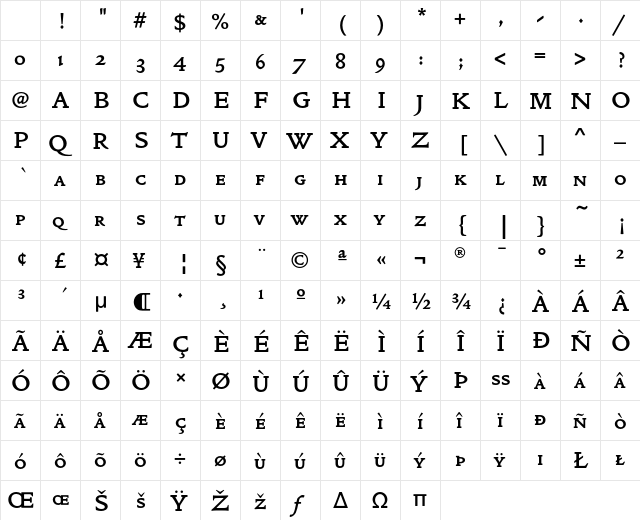
Complete GoldenTypeSCEF Bold glyph index. Displaying only characters natively supported by GoldenTypeSCEF Bold font.
GoldenTypeSCEF is a composed and adaptable typeface that performs quietly and consistently across a wide range of design contexts. Its bold stroke weight gives it real presence on the page.